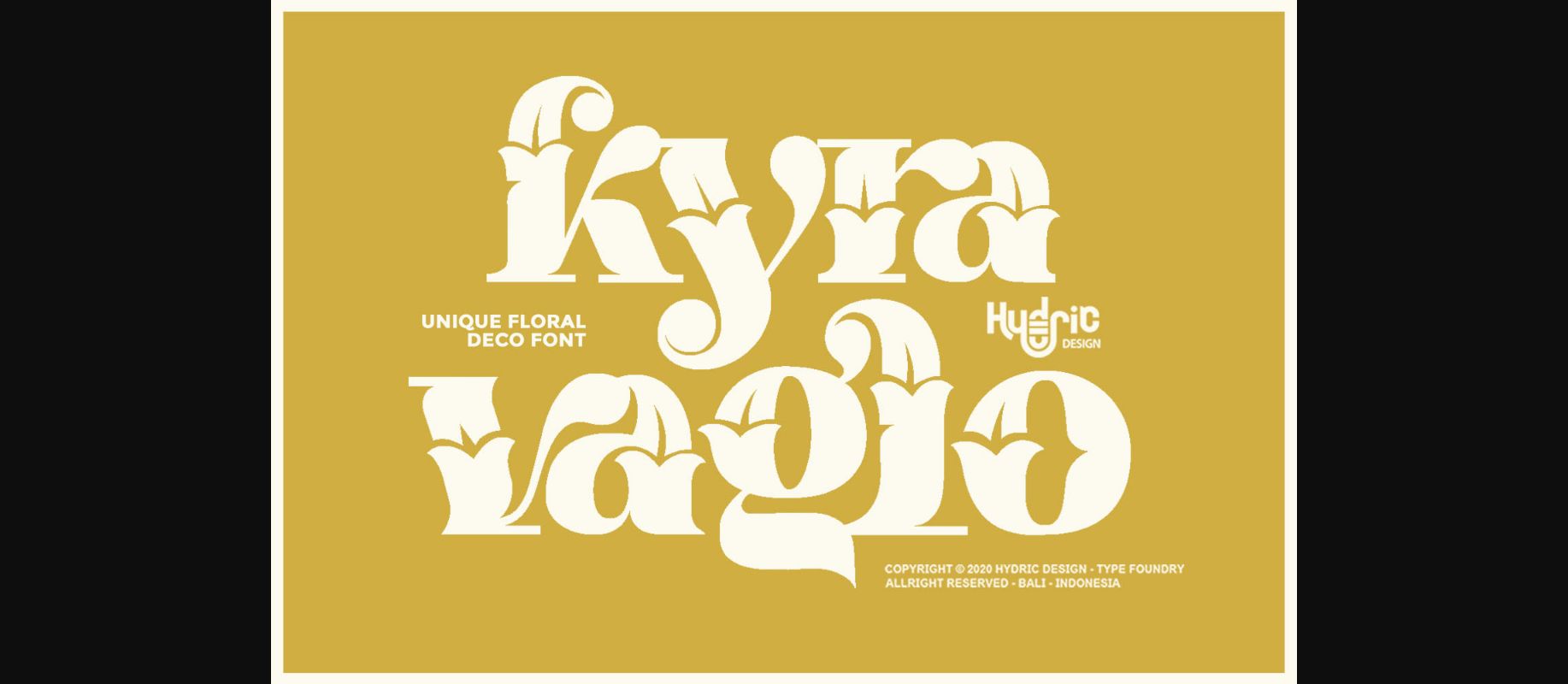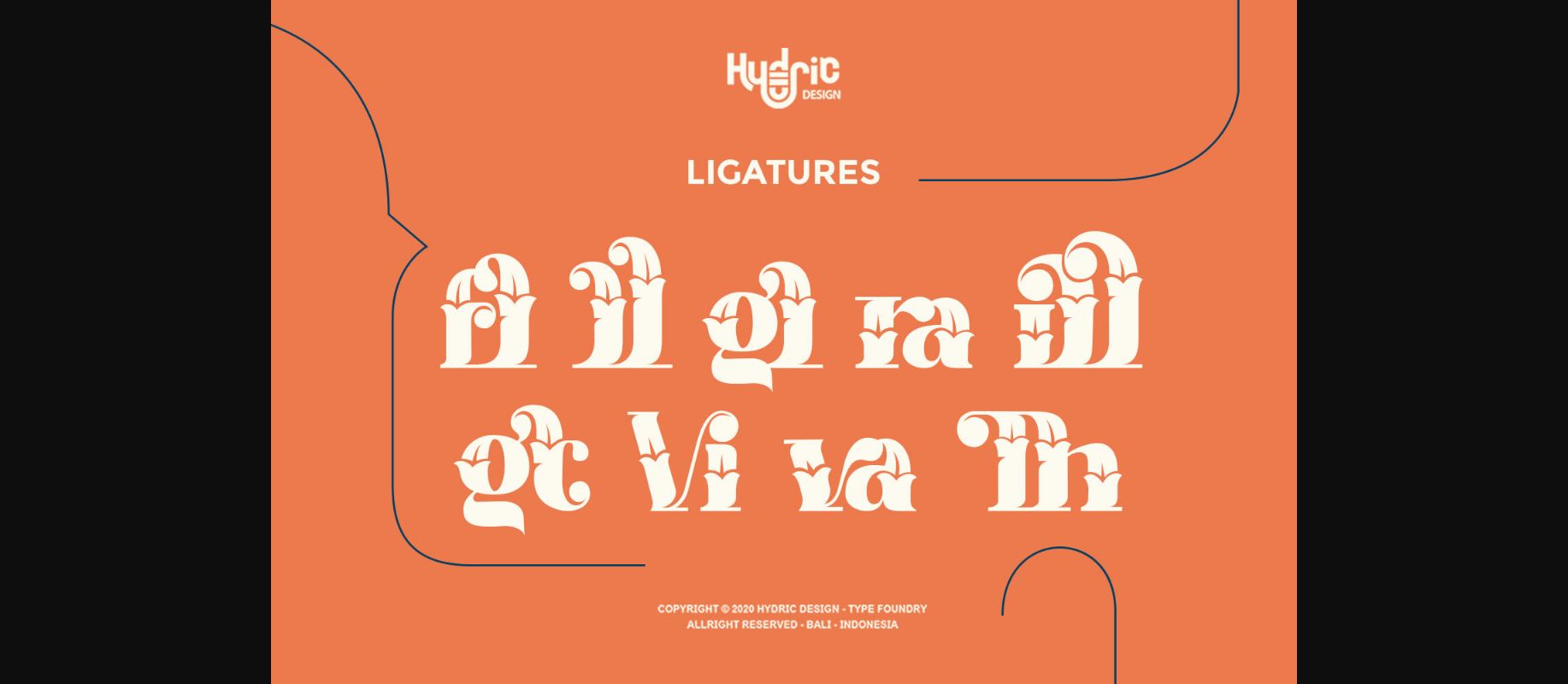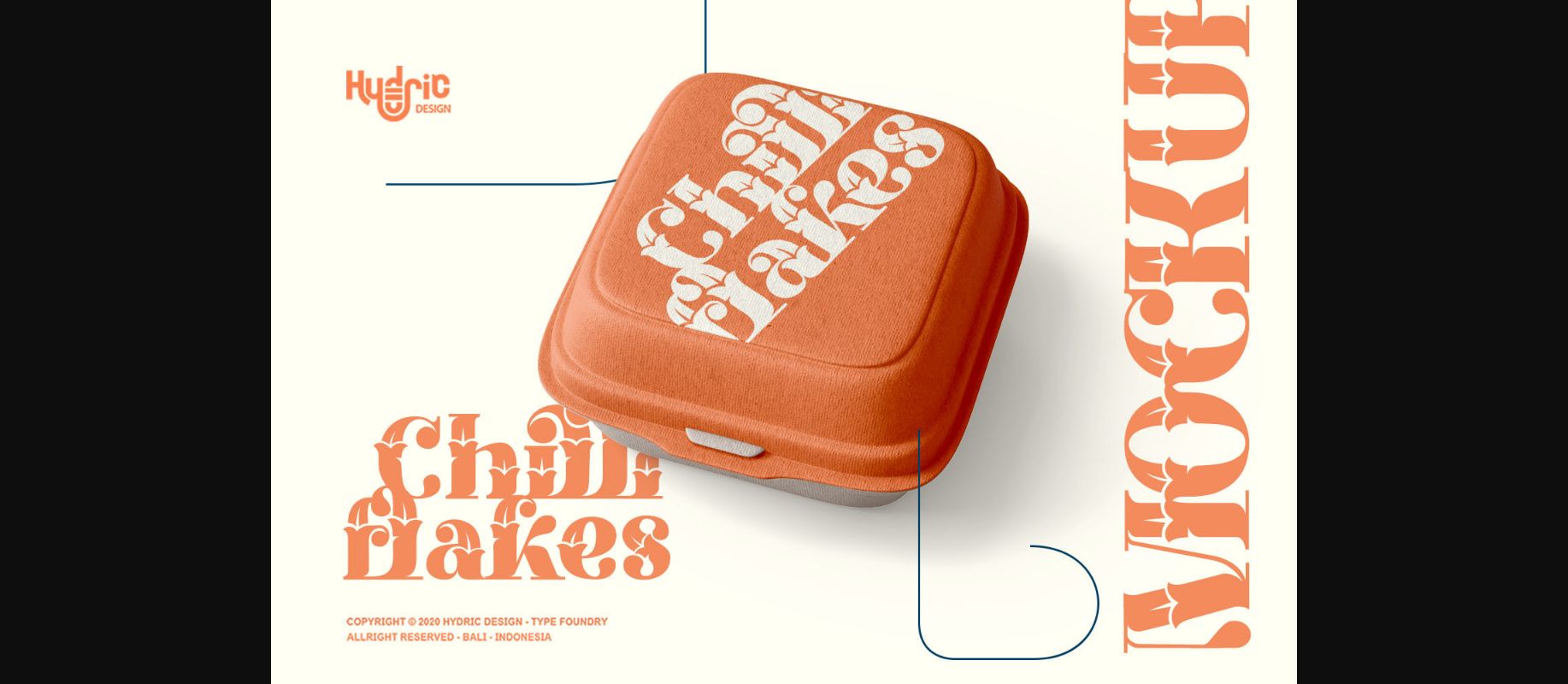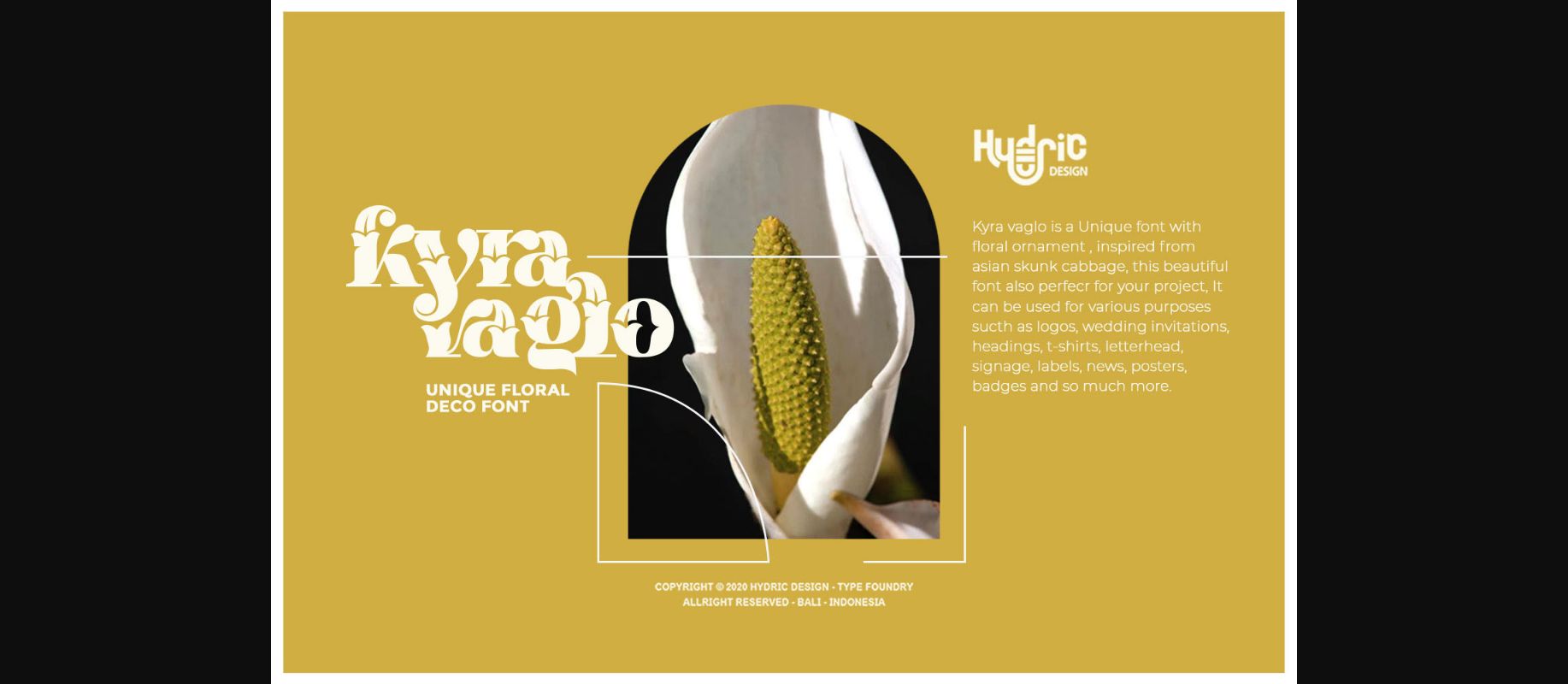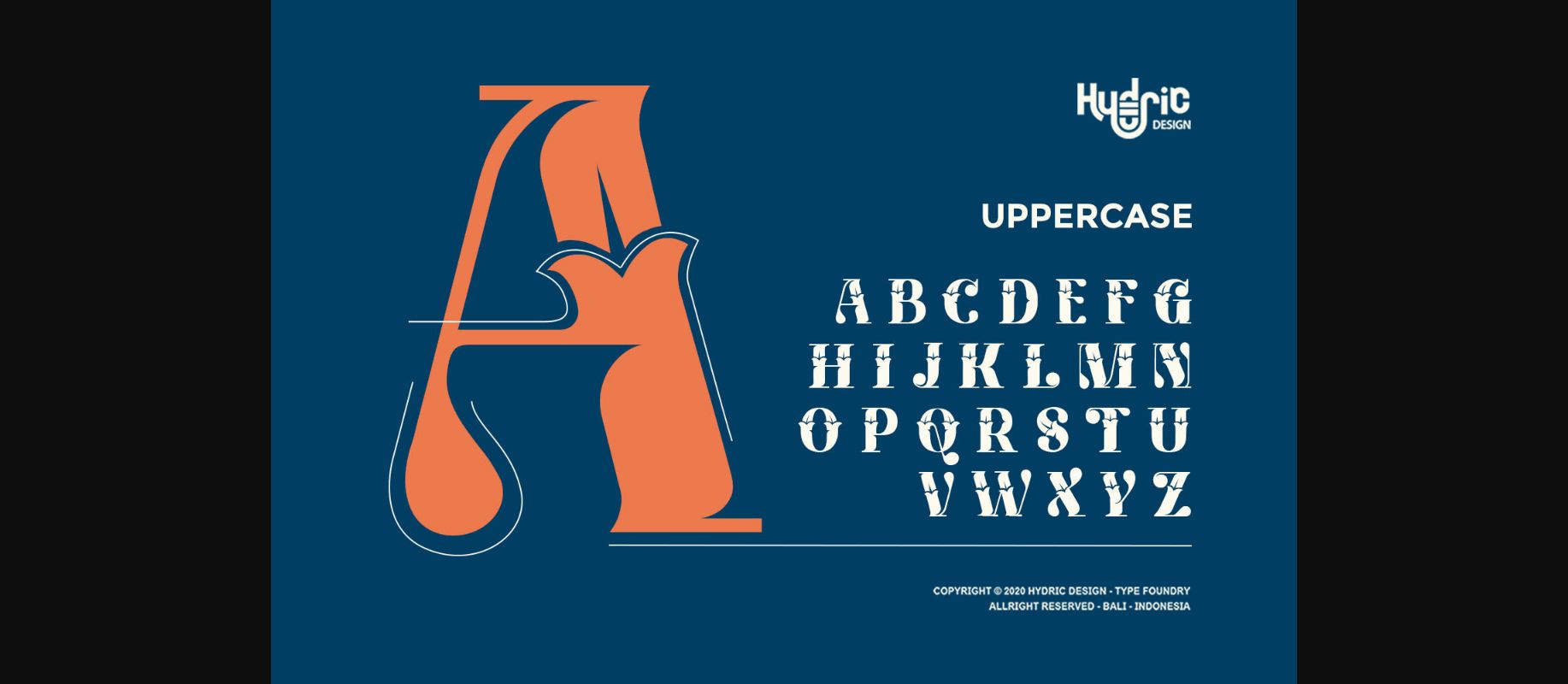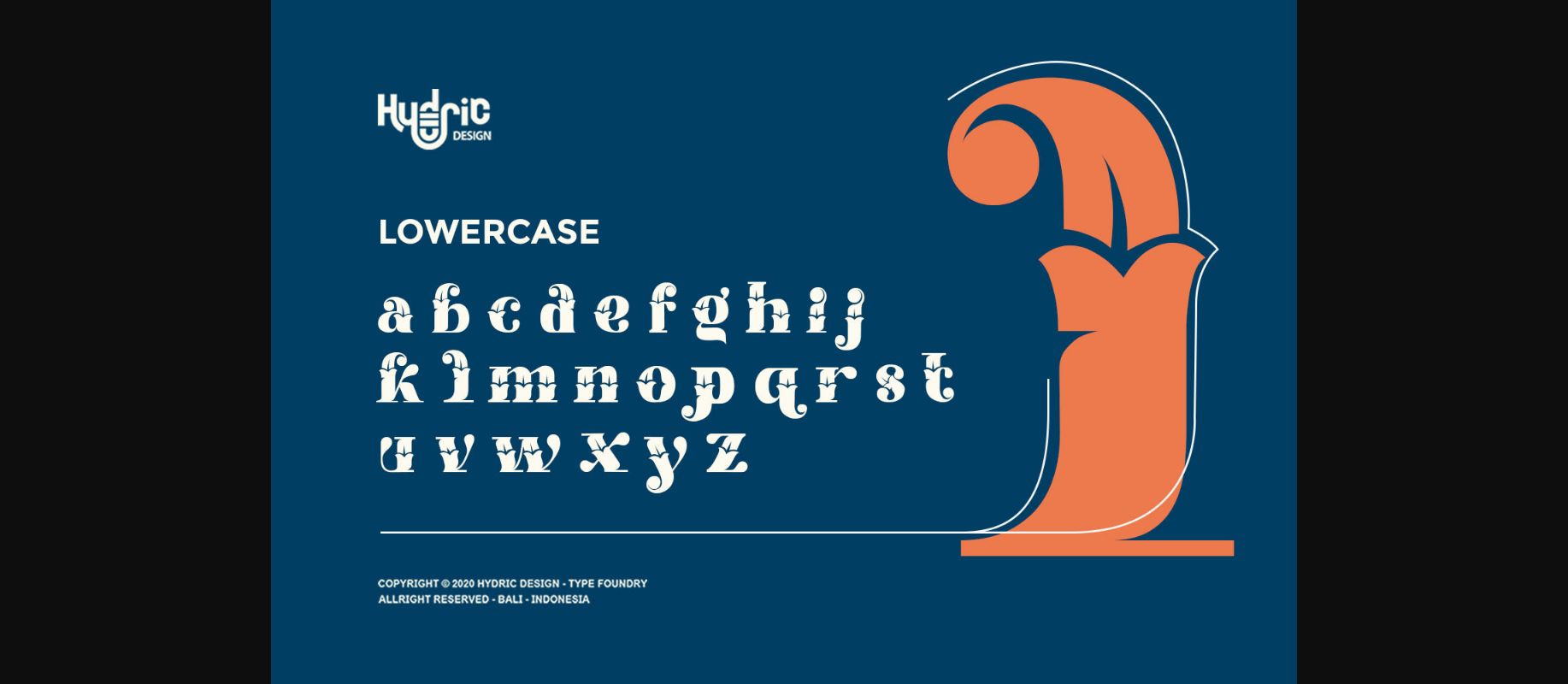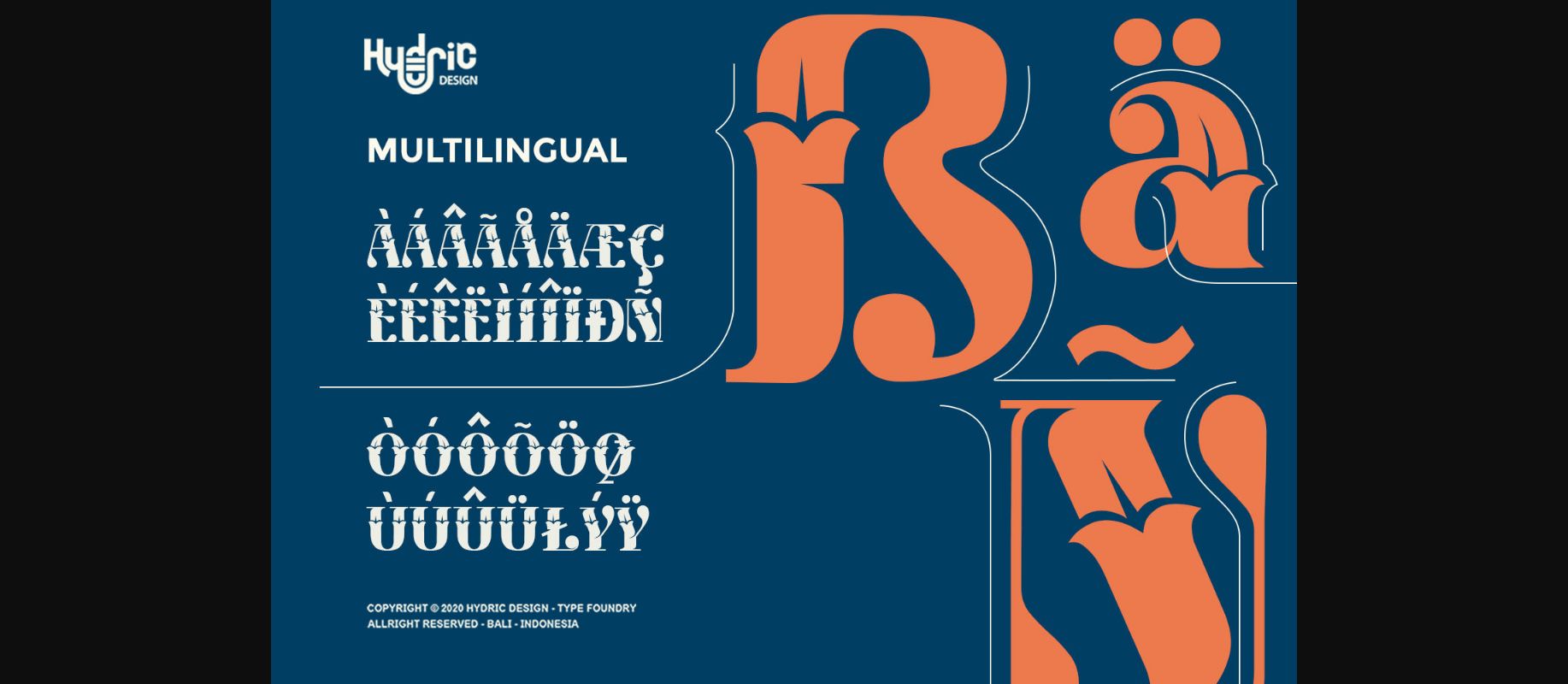
Kyra Vaglo Font
About Kyra Vaglo Font
Kyra Vaglo is a charming decorative font. Fall in love with its authentic feel and use it to create gorgeous invitations, beautiful stationary art, eye-catching social media posts, and cute greeting cards.